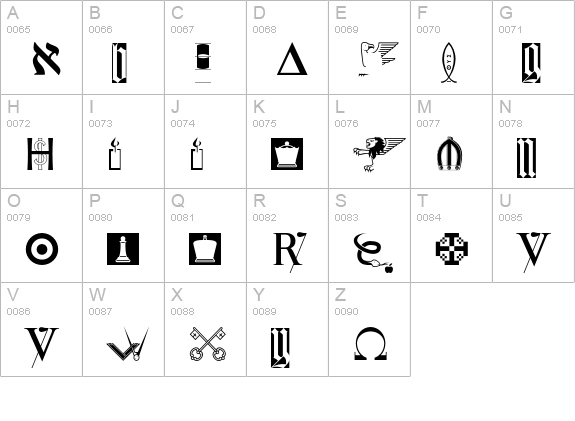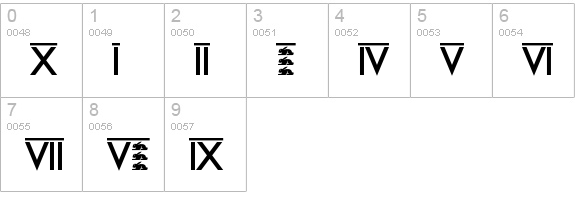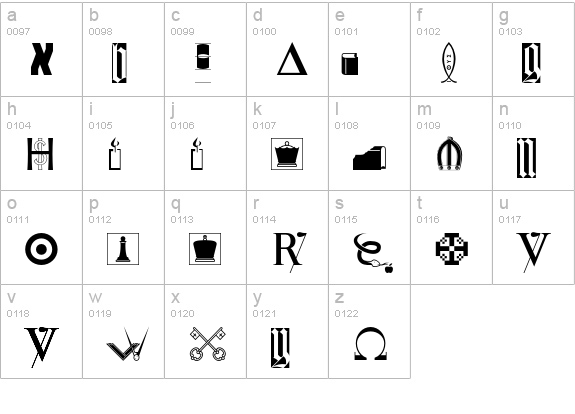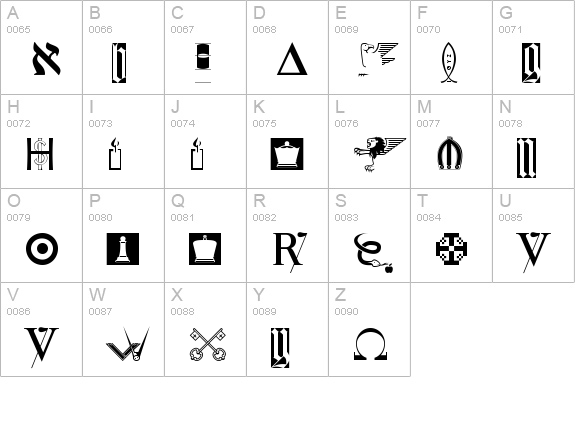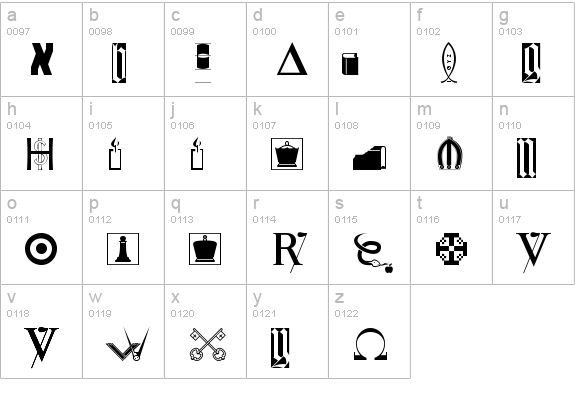
Ushaw Font Details
Ushaw font is a captivating and versatile typeface that embodies elegance and sophistication. With its graceful curves and clean lines, this font is perfect for a wide range of design projects, from branding and logo designs to editorial layouts and web designs. What sets Ushaw font apart is not only its aesthetic appeal but also its accessibility. This font is available for free, allowing designers and creatives to explore its potential without any financial constraints. Whether you're a professional designer or simply someone with a passion for typography, Ushaw font is a valuable addition to your font library. Downloading Ushaw font is incredibly easy. Simply visit FontsMarket.com, a trusted online platform for font enthusiasts, and you can access this stunning typeface with just a few clicks. Once downloaded, you'll have the freedom to use Ushaw font in both personal and commercial projects, making it an invaluable resource for designers and businesses alike. With its timeless charm and the added advantage of being freely available, Ushaw font is the perfect choice for those looking to add a touch of elegance and finesse to their designs. Whether you're working on a branding project that requires a sophisticated look or creating a visually stunning website, Ushaw font is sure to impress. Don't miss out on this incredible opportunity to enhance your designs with Ushaw font, freely accessible at FontsMarket.com.